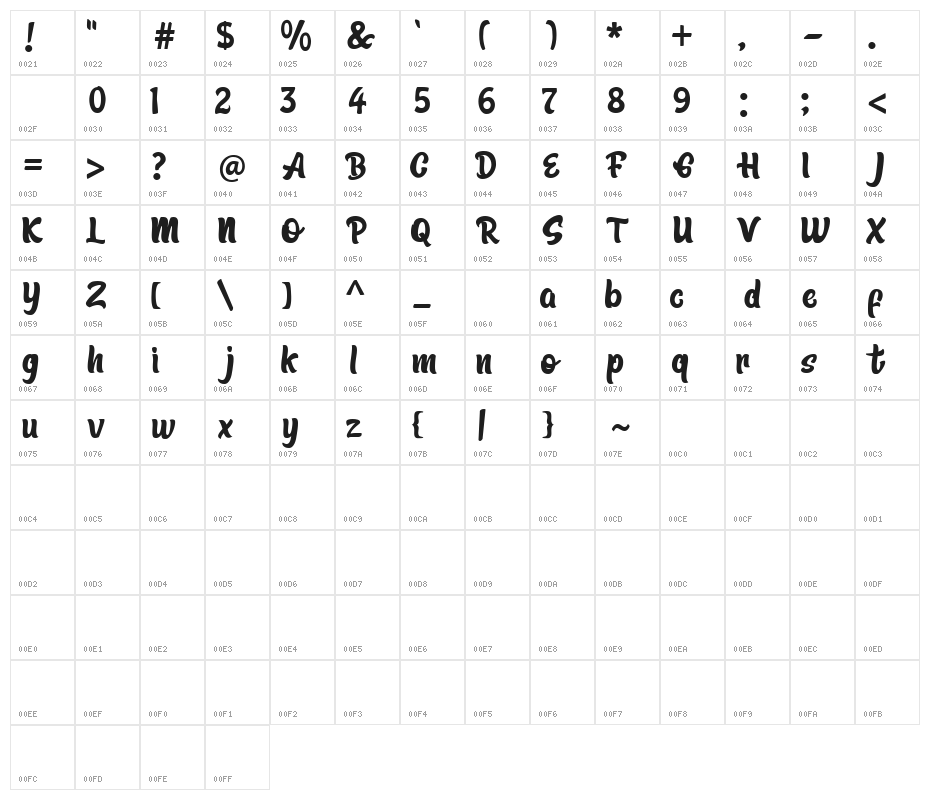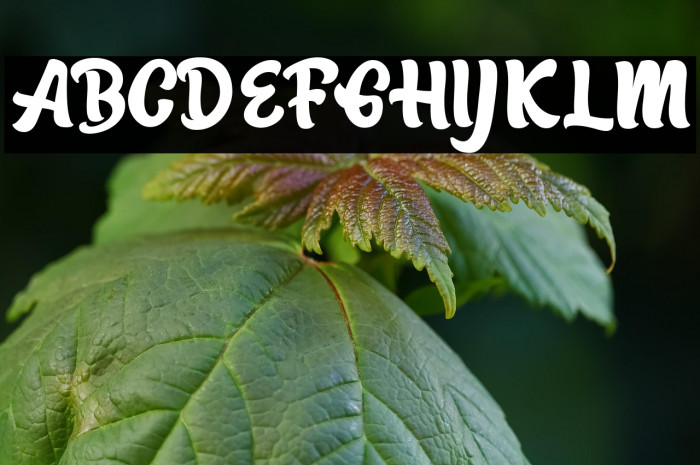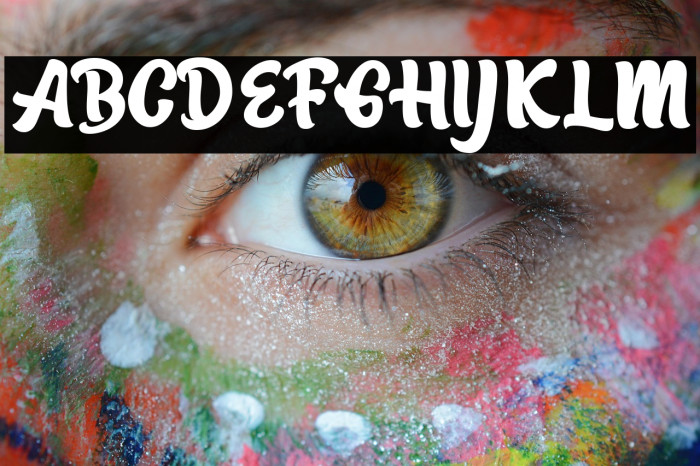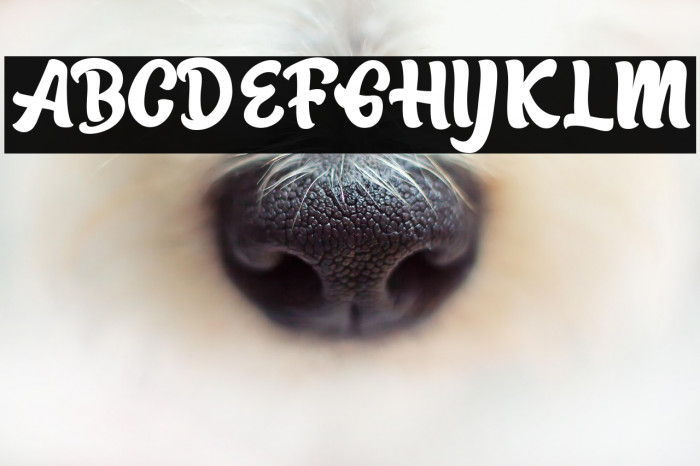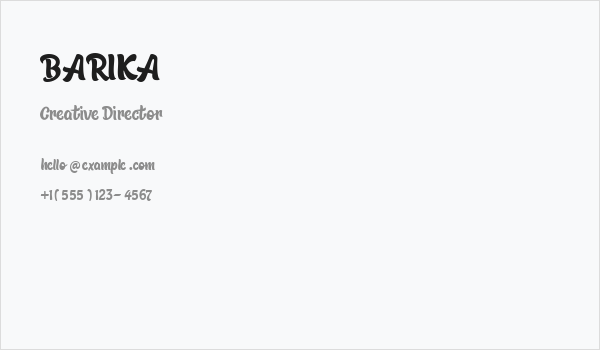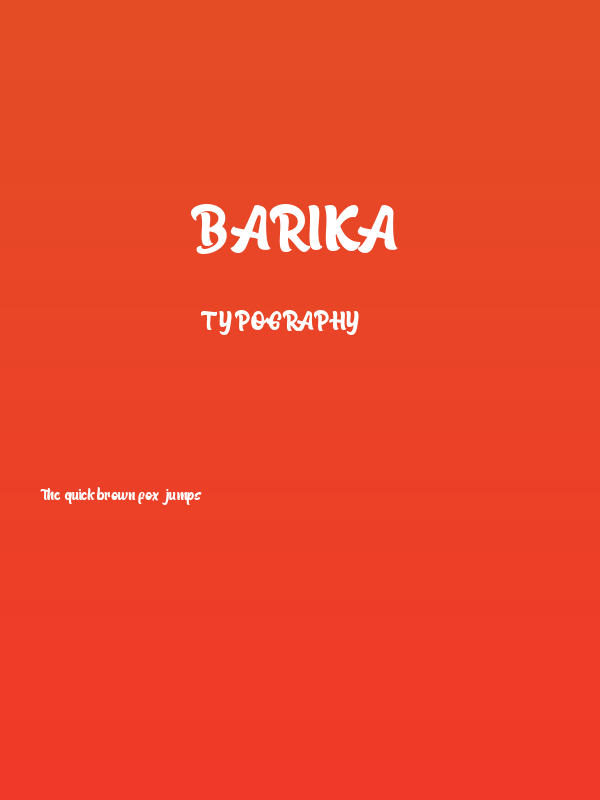
BARIKA Font
BARIKA Description
This font features a bold and playful script style with a handwritten feel. The characters are rounded and slightly slanted, giving them a dynamic and lively appearance. The uppercase letters are bold and prominent, while the lowercase letters maintain a consistent flow with smooth curves and loops. The numbers are equally bold, ensuring readability. Special characters are designed to match the playful and energetic style of the alphabet. This font is ideal for projects that require a fun and engaging look, such as children's books, playful branding, or creative posters.
| Overall Style | Playful, Energetic |
| Proposed Projects | Ideal for children's books, playful branding, creative posters, and invitations. |